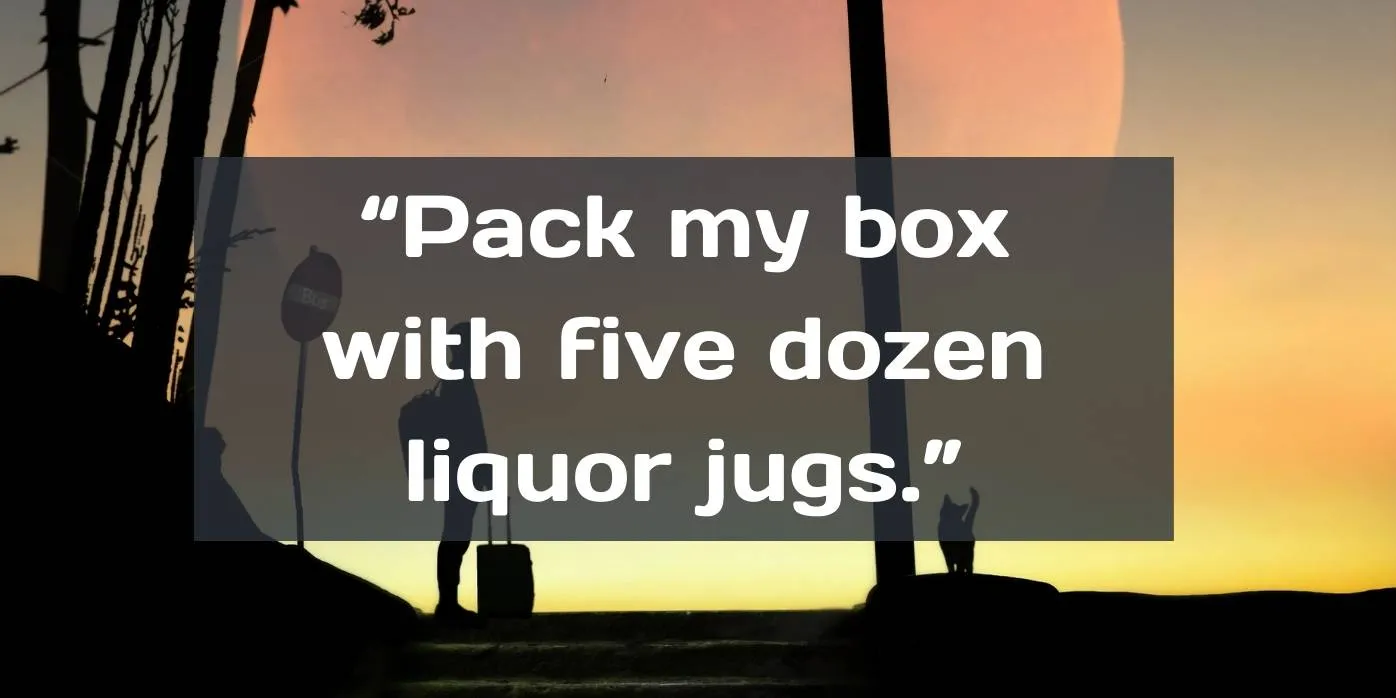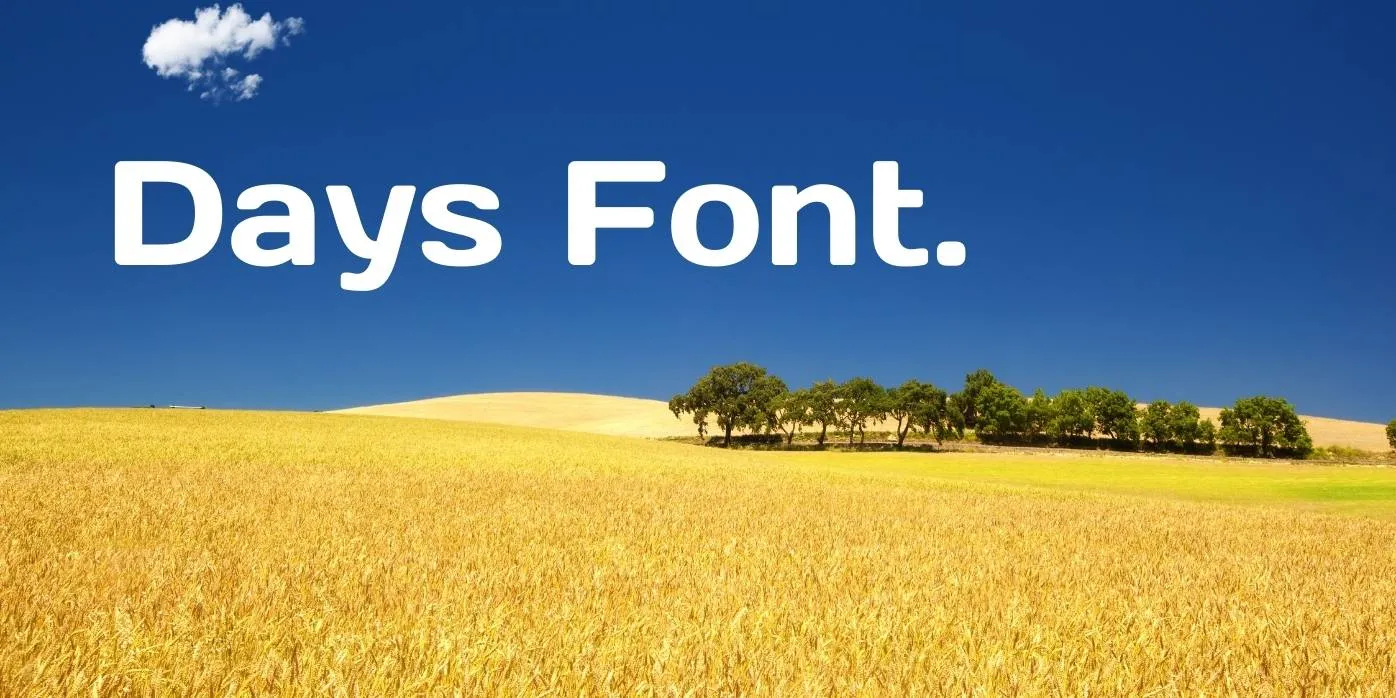
Days Font
Days Font is very famous and designed byJovanny Lemonad released in 2009. This staggering typeface is very nice and helpful for a lot of designs. This typeface was very famous and perfect for many advanced designs projects. This is very nice and perfect for every people who want to make progress in their project or presentation or any other thing.
This cute typeface comes in unique Glyphs and unique characters. This stylish typeface has many resources are available on the internet but it is useful to download this typeface from our official website. This typeface can be available with clean and keen features. You can use this font with its similar font Fredoka One Font.
Its Glyphs contain Stylistic Sets and weights. These weights and Glyphs have incrusted weights. This typeface includes Italic, fallback and etc.